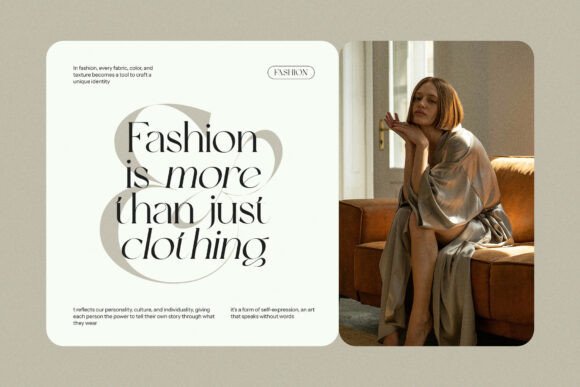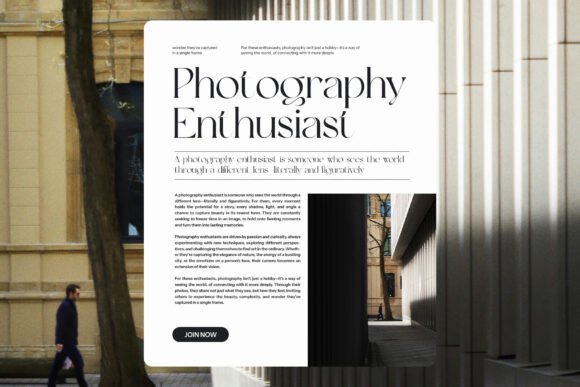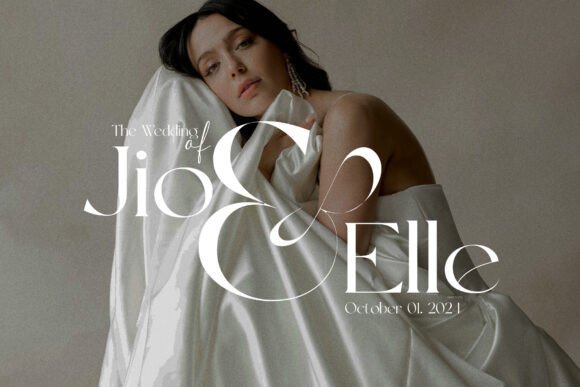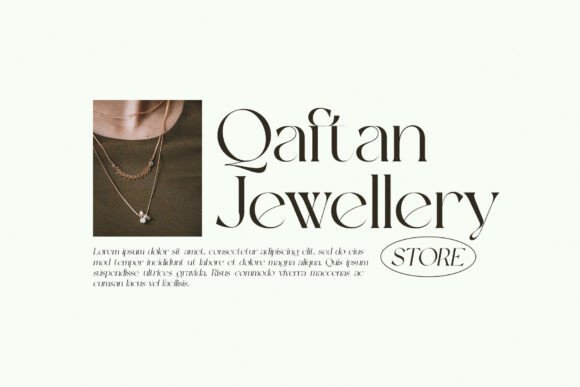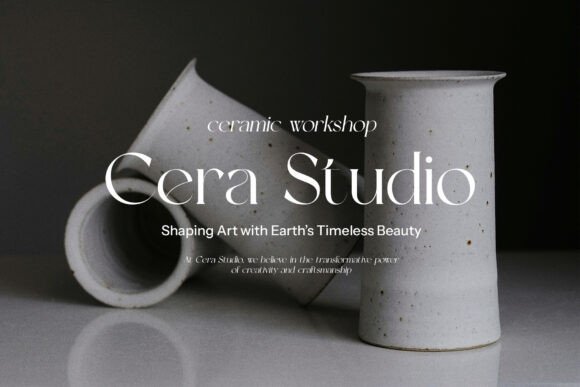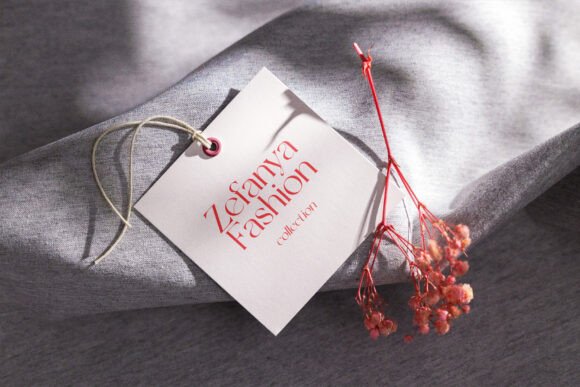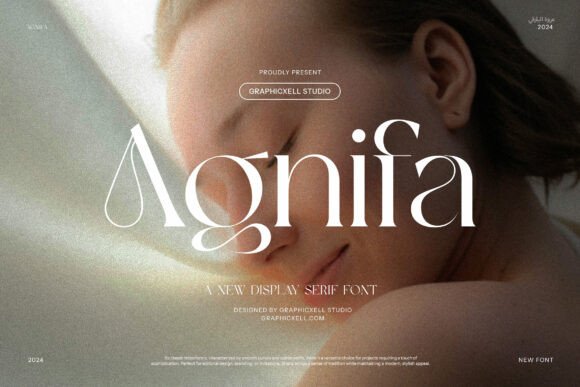
Introducing Agnifa Font: Elevate Your Design with Sophistication and Luxury
In the realm of typography, a font can make or break the aesthetic and feel of a design project. For those seeking a typeface that exudes premium quality and luxury, Agnifa Font is an exceptional choice. This sophisticated ligature serif font is meticulously crafted to stand out from the ordinary, offering a unique blend of elegance and refinement.
What Makes Agnifa Font Unique?
Agnifa Font’s distinctiveness lies in its ligatures, which are special connections between letters that create a flowing, harmonious look. Unlike regular serif fonts, Agnifa’s ligatures add an extra layer of sophistication, making it perfect for projects where making a statement is key. Whether you’re designing a logo, headline, or title, Agnifa ensures that your work not only looks professional but also luxurious.
The Versatility of Agnifa Font
One of the significant advantages of Agnifa Font is its versatility. It’s incredibly adaptable, making it suitable for a wide range of applications. Here are some of the areas where Agnifa truly shines:
- Logos and Branding: Create a lasting impression with a logo that embodies sophistication and elegance.
- Invitations and Greeting Cards: Add a touch of luxury to your wedding invitations, greeting cards, or any special occasion.
- Packaging and Labels: Elevate your product’s packaging with a font that speaks of premium quality.
- Fashion and Beauty: Perfect for fashion magazines, beauty blogs, or makeup product branding.
- Stationery and Novels: Give your stationery or novels a classic, sophisticated look.
- Advertising: Use Agnifa in any advertising material to convey a sense of luxury and high-end quality.
Why Choose Agnifa Font?
Choosing Agnifa Font for your design project comes with numerous benefits:
- Unique Ligatures: Stand out with a font that offers something extra – beautiful ligatures that connect letters in a stylish way.
- Premium Quality: Impress your audience with a font that looks high-end and luxurious.
- Versatility: Use Agnifa across various platforms and materials, from digital to print.
- Ease of Use: Despite its sophisticated look, Agnifa is easy to read and use in various design contexts.
How to Use Agnifa Font Effectively
To maximize the impact of Agnifa Font, consider the following tips:
- Pair with Simplicity: Let Agnifa be the star of your design. Pair it with simple backgrounds or graphics to ensure it stands out.
- Experiment with Ligatures: Take advantage of Agnifa’s ligatures to add a unique touch to your text.
- Adjust Size and Color: Play with the size and color of Agnifa to match the tone and mood of your project.
- Mix and Match: Don’t be afraid to use Agnifa alongside other fonts to create a layered look.
Agnifa Font is more than just a typeface; it’s a design statement. With its sophisticated ligature serif design, it offers a blend of elegance, luxury, and uniqueness that’s hard to find. Whether you’re a designer, a craftsperson, or someone who appreciates the finer details in design, Agnifa is an excellent addition to your typography toolkit. Elevate your designs with a font that promises to make them stand out.
Discover the potential of Agnifa Font today and transform your projects with its luxurious feel and premium quality.